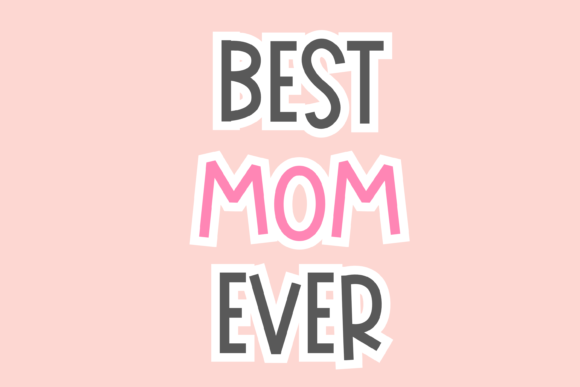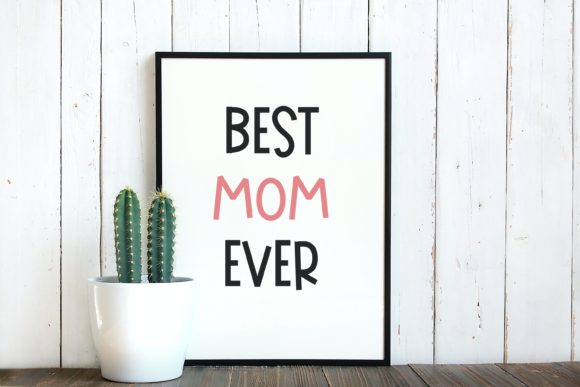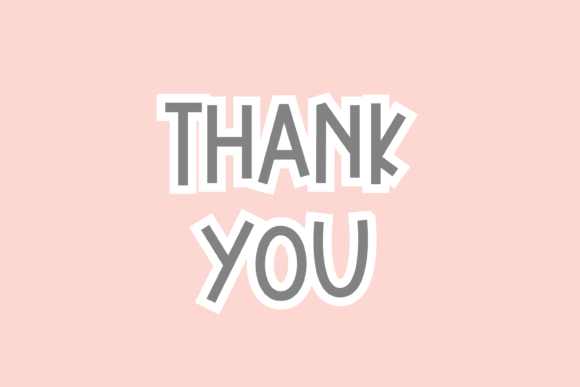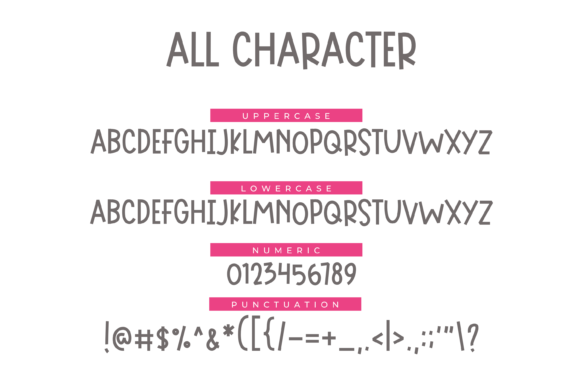
Creamy Peach Font: The Perfect Choice for Designers and Crafters
Are you looking for a font that can add a touch of playfulness and simplicity to your designs? Look no further than the Creamy Peach Font! This beautiful display font is perfect for a variety of projects, from crafting and digital designing to presentations and greeting cards making.
What is Creamy Peach Font?
Creamy Peach Font is a simple and playful display font that is designed to add a touch of elegance and sophistication to your designs. Its creamy texture and peachy hue give it a unique and eye-catching appearance that is sure to grab attention.
Features of Creamy Peach Font
- Simple and Playful: Creamy Peach Font is a simple and playful font that is perfect for designs that require a touch of whimsy and fun.
- Display Font: This font is specifically designed as a display font, making it perfect for headlines, titles, and other display text.
- Creamy Texture: The creamy texture of this font gives it a unique and eye-catching appearance that is sure to add a touch of elegance to your designs.
- Peachy Hue: The peachy hue of this font adds a touch of warmth and coziness to your designs, making it perfect for projects that require a friendly and approachable feel.
Uses of Creamy Peach Font
Creamy Peach Font is a versatile font that can be used for a variety of projects, including:
- Crafting: Whether you’re making DIY crafts, scrapbooking, or card making, Creamy Peach Font is the perfect choice.
- Digital Designing: This font is perfect for digital designers who want to add a touch of playfulness and simplicity to their designs.
- Presentations: Creamy Peach Font is a great choice for presentations that require a touch of elegance and sophistication.
- Greeting Cards Making: This font is perfect for making greeting cards, invitations, and other paper crafts.
Why Choose Creamy Peach Font?
There are many reasons why you should choose Creamy Peach Font for your next project. Here are a few:
- Unique and Eye-Catching: This font has a unique and eye-catching appearance that is sure to grab attention.
- Versatile: Creamy Peach Font can be used for a variety of projects, from crafting and digital designing to presentations and greeting cards making.
- Easy to Read: This font is easy to read, making it perfect for designs that require a clear and concise message.
- High-Quality: Creamy Peach Font is a high-quality font that is designed to deliver exceptional results.
Tips for Using Creamy Peach Font
Here are a few tips for using Creamy Peach Font:
- Use it for Headlines: Creamy Peach Font is perfect for headlines and titles, so use it to add a touch of elegance and sophistication to your designs.
- Pair it with Other Fonts: This font pairs well with other fonts, so feel free to experiment with different combinations to find the perfect look for your design.
- Use it for Digital and Print Designs: Creamy Peach Font can be used for both digital and print designs, making it a versatile choice for designers.
In conclusion, Creamy Peach Font is a simple and playful display font that is perfect for designers and crafters. Its unique and eye-catching appearance, versatility, and high-quality design make it a great choice for a variety of projects. Whether you’re making DIY crafts, digital designing, or creating presentations and greeting cards, Creamy Peach Font is the perfect choice. So why wait? Download Creamy Peach Font today and start creating beautiful designs that are sure to impress!